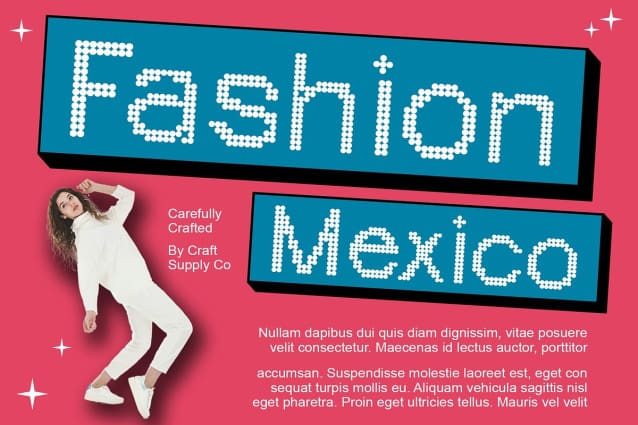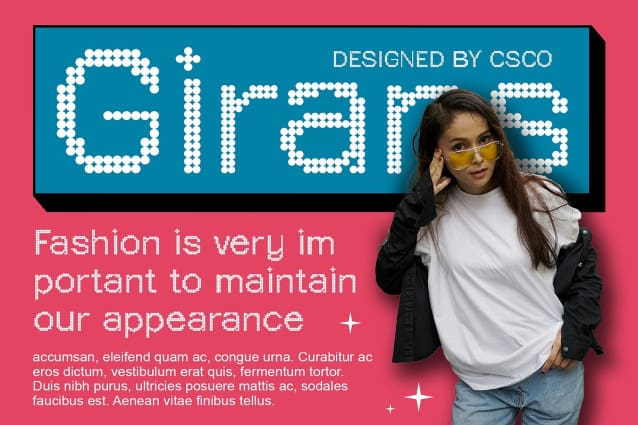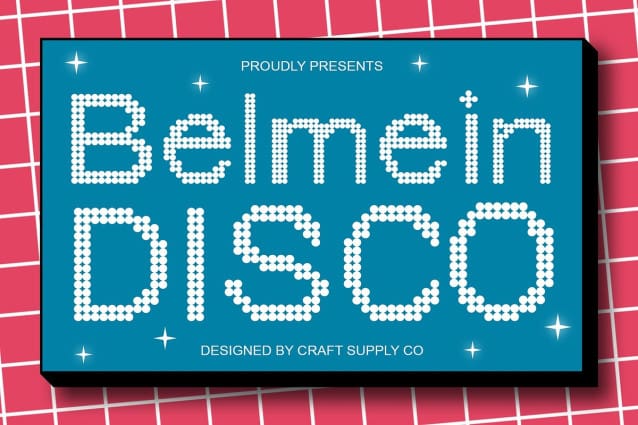
Belmein Disco Font
Belmein Disco Font : Groovy Display Typography. Disco-Inspired Design Belmein Disco features a sans-serif, low-contrast design with mesmerizing dot effects, reminiscent of the vibrant disco era. Its lively aesthetic adds a touch of retro flair to any display project.
Captivating Dot Effects The dot effects in This font create a dynamic visual rhythm, evoking the energetic atmosphere of discotheques. Each character pulsates with vibrancy, drawing attention and enhancing visual impact.
Perfect for Display Purposes Tailored for display use, This font shines in various applications, from event posters to album covers. Its unique style grabs the audience’s attention and sets the stage for memorable designs.
Versatile and Funky Beyond its disco-inspired theme, This font offers versatility in design. Whether used for branding, packaging, or digital media, its groovy vibe injects fun and excitement into every project.
Retro Vibes for Modern Designs This font is the perfect choice for designers seeking to infuse their projects with retro charm and disco vibes. With its captivating dot effects and low-contrast sans-serif design, it adds a funky flair to any display application, ensuring that your designs stand out on the dance floor of creativity.